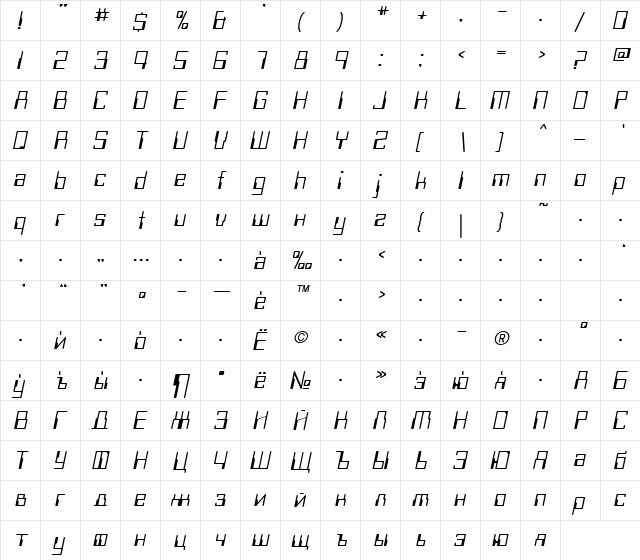
SpaceCyr Italic
Design Context for SpaceCyr Typeface
SpaceCyr takes a measured approach to typography — its balanced proportions and neutral character make it a reliable workhorse for both digital and print work. Its italic angle brings a sense of urgency and motion to the letterforms.
Pro Tip: Use SpaceCyr for emphasis, pull quotes, and subheadings where its slanted energy can add rhythm to the layout.